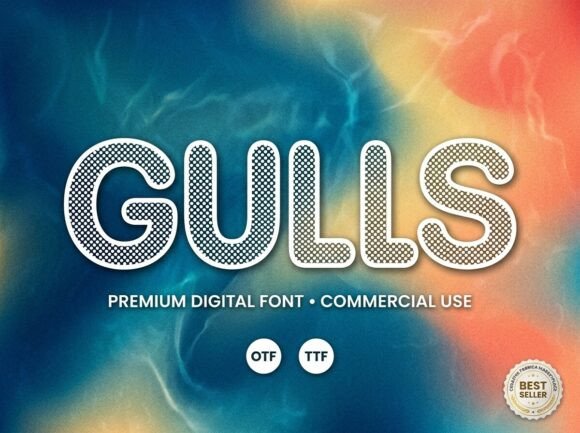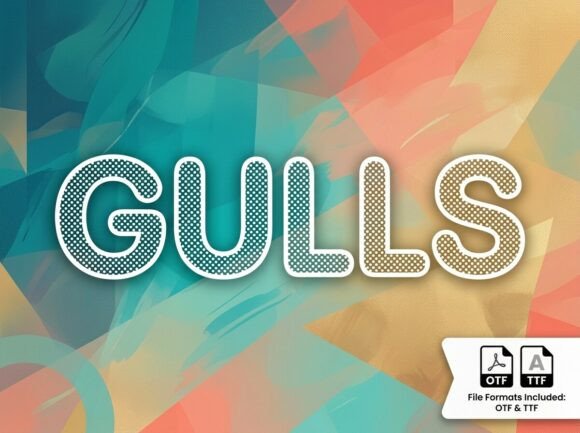
Make a Splash with Gulls: The Ultimate Retro-Inspired Display Typeface
Are you tired of using the same old fonts for your designs? Look no further than Gulls, a high-energy display typeface that’s sure to make a statement. With its bold, rounded sans-serif letterforms and rhythmic halftone dot pattern, Gulls captures the essence of a “retro-and-radiant” soul that’s perfect for a variety of creative projects.
A Classic Pop-Art Aesthetic
Gulls is inspired by the classic pop-art aesthetic of the 1960s, with its chunky structural weight and vibrant personality. The font features bold, rounded letterforms that are characterized by a rhythmic halftone dot pattern, giving it a unique and eye-catching look. Whether you’re designing a logo for an independent comic book brand, a retro surf shop, or a summer festival poster, Gulls is the perfect choice.
Perfect for High-Impact Designs
Gulls is designed to make a statement, making it perfect for high-impact designs that need to grab attention. Its bold and playful personality is well-suited for social media headers, posters, and other eye-catching materials. The font’s chunky structural weight and vibrant personality ensure that your designs will stand out from the crowd and leave a lasting impression.
Key Features of Gulls
- Bold and rounded sans-serif letterforms: Gulls features bold and rounded letterforms that are perfect for creating eye-catching designs.
- Rhythmic halftone dot pattern: The font’s rhythmic halftone dot pattern gives it a unique and classic pop-art aesthetic.
- Chunky structural weight: Gulls has a chunky structural weight that makes it perfect for high-impact designs.
- Vibrant personality: The font’s vibrant personality is well-suited for designs that need to make a statement.
Use Cases for Gulls
Gulls is a versatile font that can be used for a variety of creative projects, including:
- Independent comic book branding: Gulls is perfect for creating bold and eye-catching logos for independent comic book brands.
- Retro surf shop logos: The font’s retro-inspired aesthetic makes it well-suited for creating logos for retro surf shops.
- Summer festival posters: Gulls is perfect for creating eye-catching posters for summer festivals and events.
- Social media headers: The font’s bold and playful personality makes it well-suited for social media headers that need to grab attention.
Tips for Using Gulls
Here are a few tips for using Gulls in your designs:
- Use it boldly: Gulls is designed to make a statement, so don’t be afraid to use it boldly in your designs.
- Experiment with colors: The font’s vibrant personality lends itself well to bright and bold colors, so don’t be afraid to experiment.
- Pair it with simple backgrounds: Gulls works best when paired with simple backgrounds that allow the font to take center stage.
Gulls is a high-energy display typeface that’s perfect for designers and crafters who want to add a touch of retro flair to their designs. With its bold and rounded letterforms, rhythmic halftone dot pattern, and chunky structural weight, Gulls is the premier choice for a variety of creative projects. Whether you’re designing a logo, poster, or social media header, Gulls is sure to make a splash.